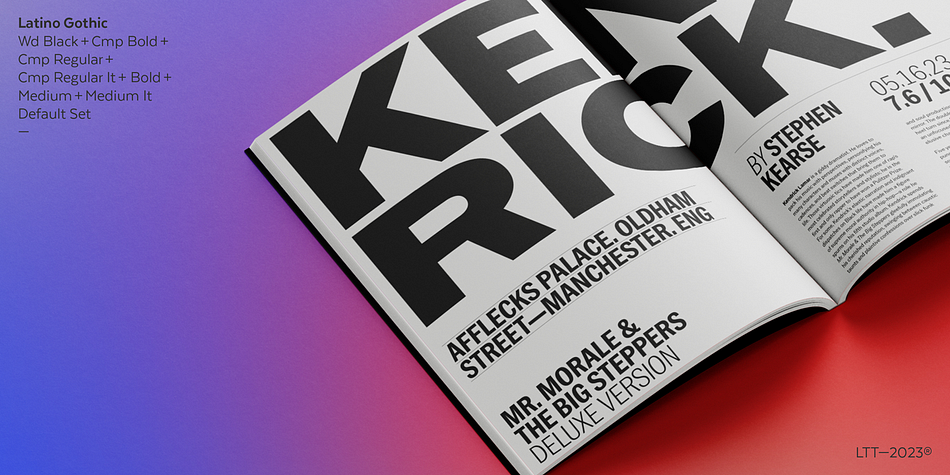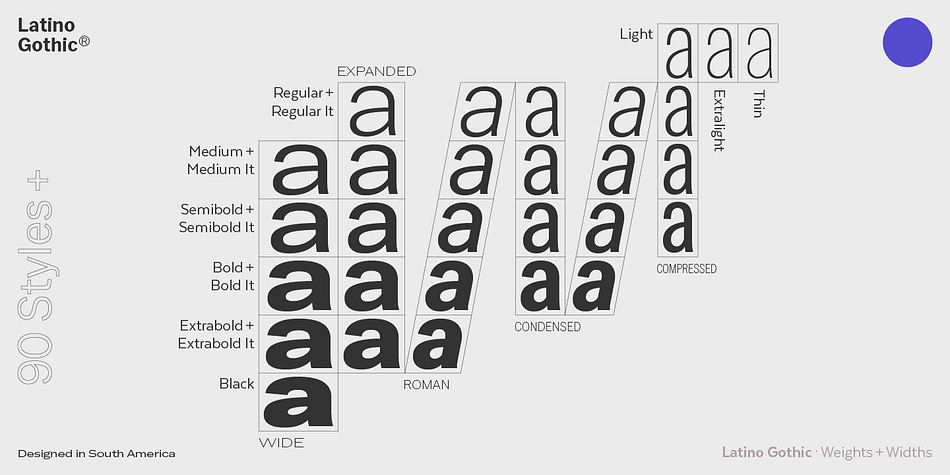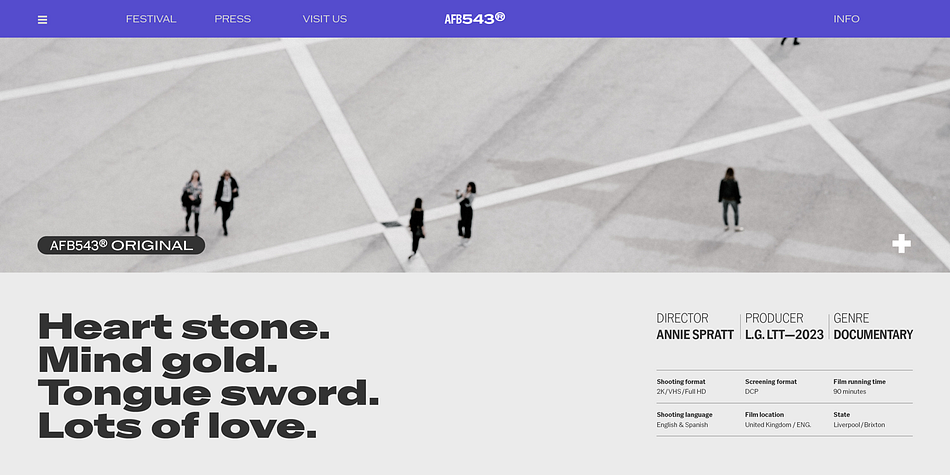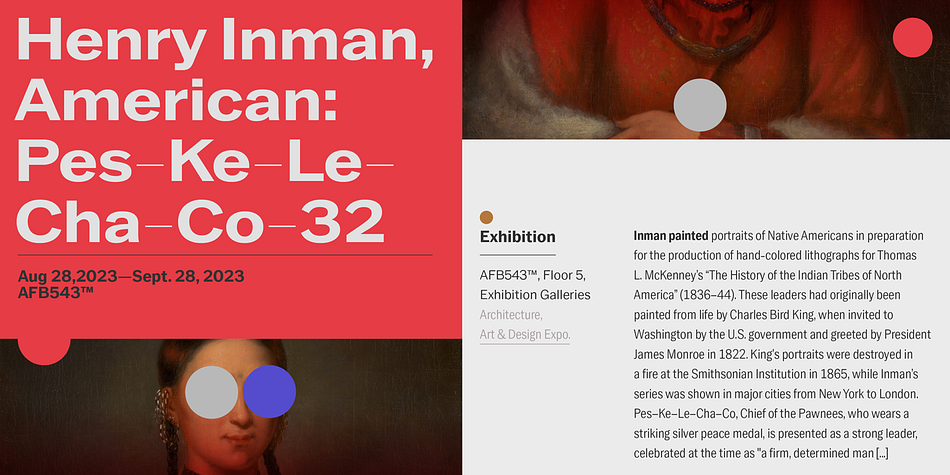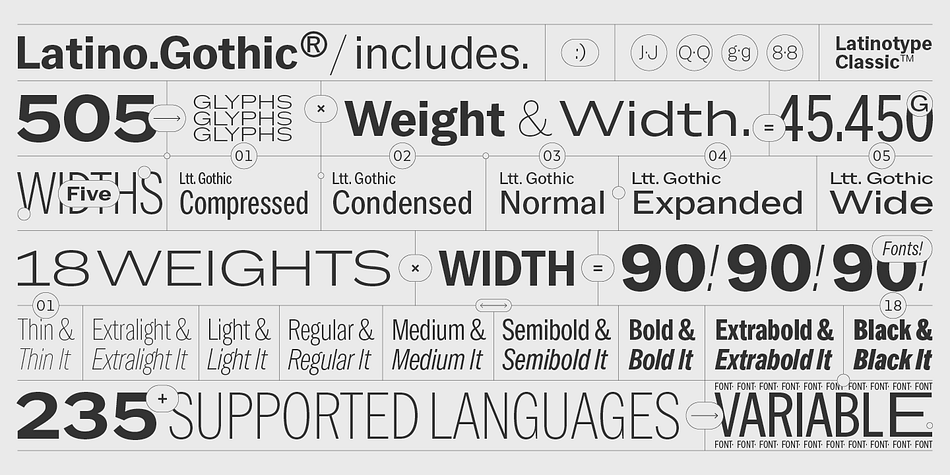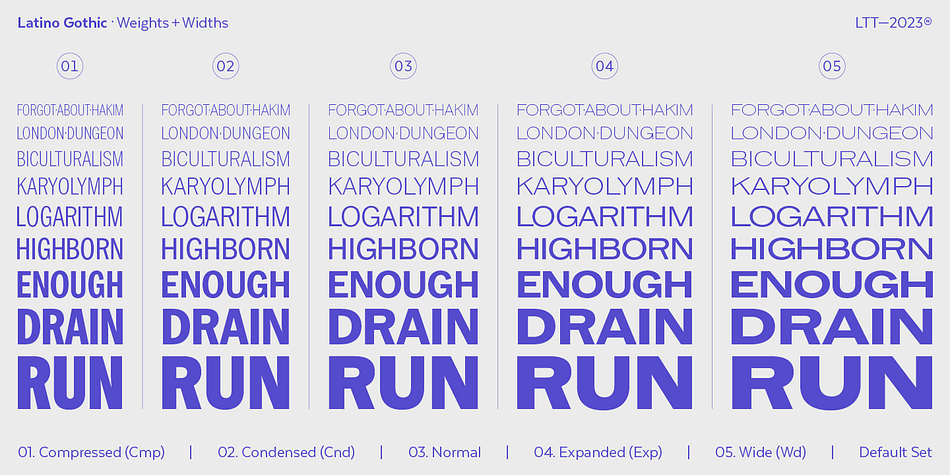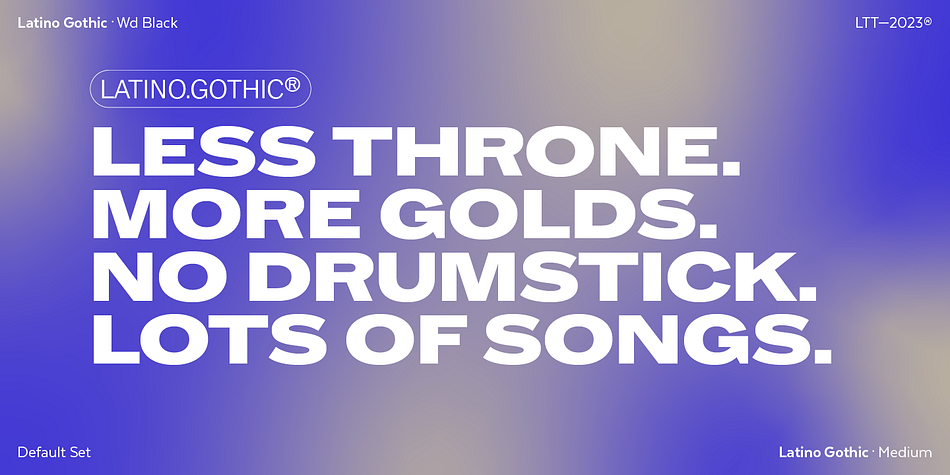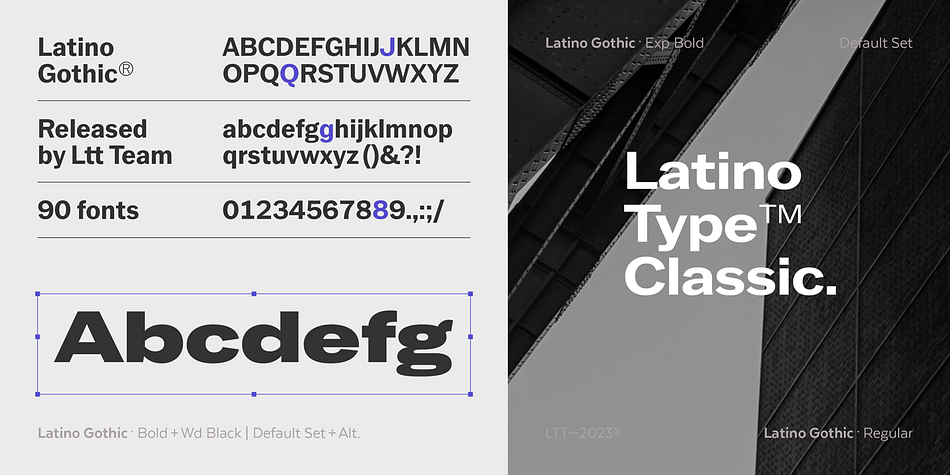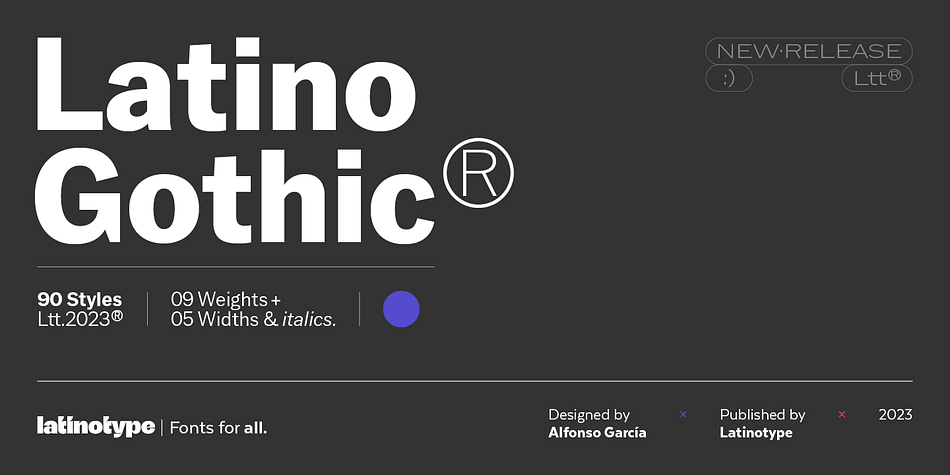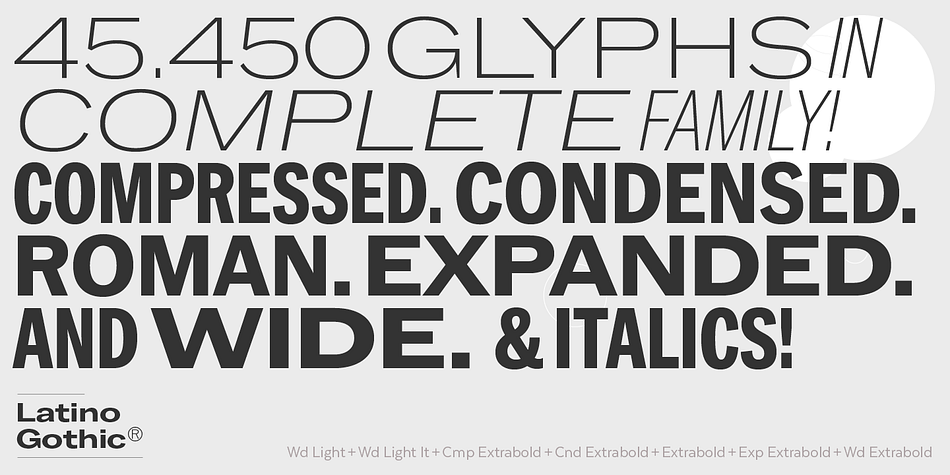
Latino Gothic
Designed by Latinotype Team and Alfonso García, Latino Gothic is a sans serif font family. This typeface has ninety styles and was published by Latinotype.
“Latino Gothic” is the result of two years of hard work by the Latinotype design team under the artistic direction of Alfonso García.
We are really proud to present a superfamily with the magnitude and characteristics of “Latino Gothic”. A very complete typographic font made up of no less than 90 styles. “Latino Gothic” offers a new interpretation of the original design totally focused on the needs of visual communication of the 21st century.
“Latino Gothic” is designed to respond to the most varied communication needs thanks to its 5 widths and 9 weights, with their respective italics.
90 different styles make it the most versatile and complete gothic family on the market!